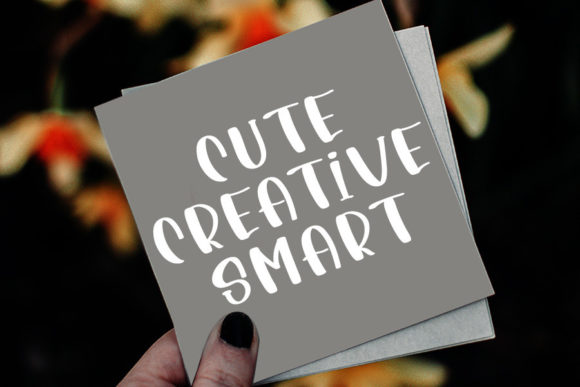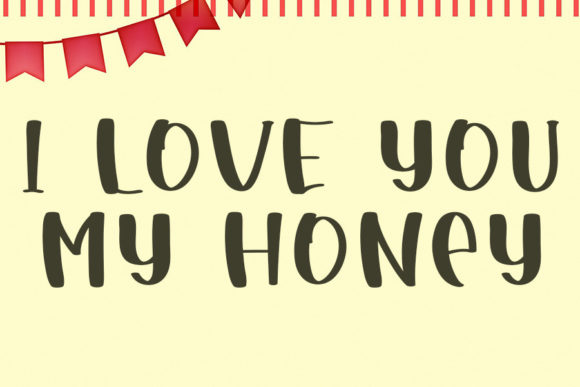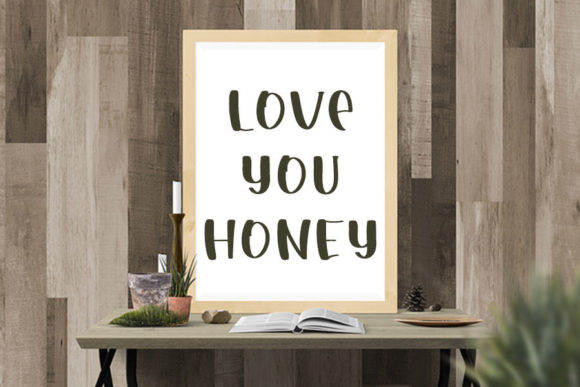
Introduction to Dino Dino Riko Syukuri Font
Dino Dino Riko Syukuri is a sweet, quirky, and flexible display font.
It embodies playfulness and authenticity and is the perfect choice for any children activity or school project .